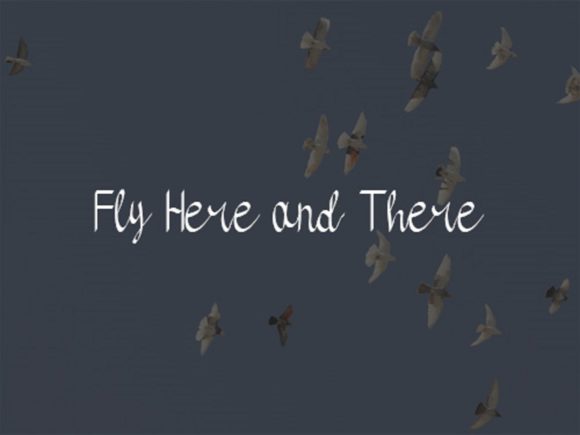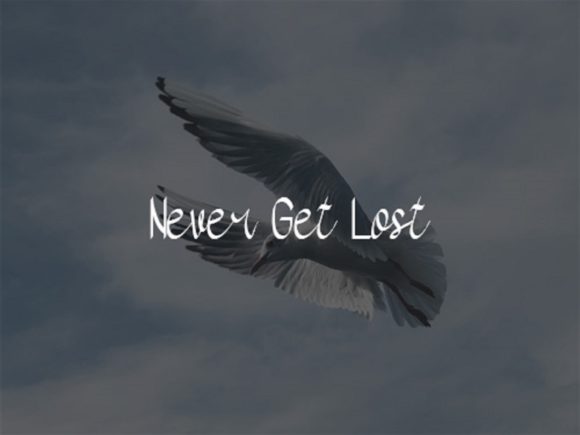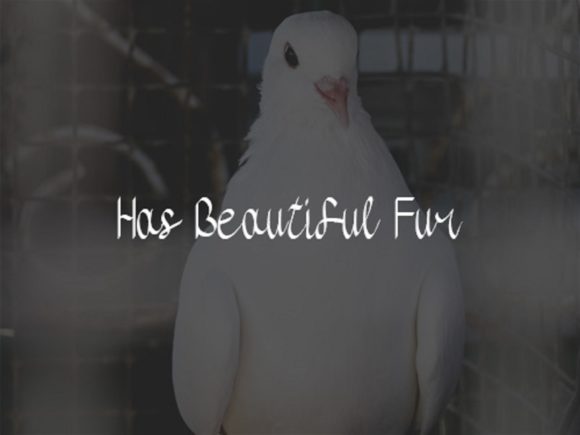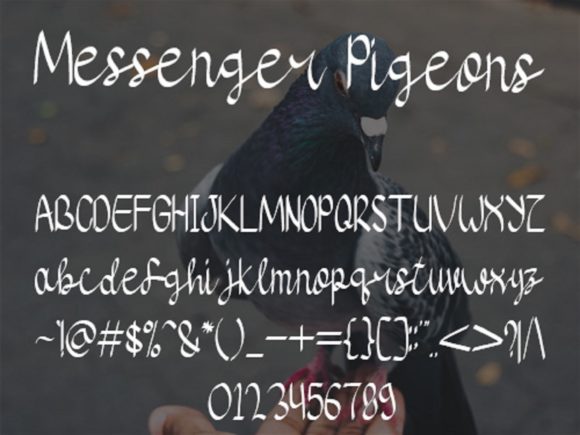
Introduction to Messenger Pigeons Font
Have you ever stumbled upon a beautiful design that made you stop scrolling and take notice? For designers, that ‘aha’ moment is what drives creativity and inspires new projects. It happened to me when I discovered the Messenger Pigeons Font – a magical script font that effortlessly elevates any design to a work of art. Whether you’re working on a DIY project or creating content for social media, this font is the perfect addition to your design resource.
What sets Messenger Pigeons Font apart is its unique blend of elegance and sophistication, making it a valuable asset for designers. With a high-quality design that can be easily downloaded, this font is perfect for those looking to add a touch of personality to their creative project. Plus, with a transparent background, you can easily integrate it into your design without any hassle.
Key Features of Messenger Pigeons Font
- Unique and playful design ideal for creative projects and design resources.
- High-quality font with transparent background, suitable for various design applications.
- Includes a range of characters and glyphs, making it suitable for various languages and scripts.
- Designed to be versatile and adaptable, suitable for use in various design contexts, from digital to print media.
Honest Review: Messenger Pigeons Font
I recently stumbled upon the Messenger Pigeons Font and I’m excited to share my thoughts on this design resource. As a designer, I’m always on the lookout for high-quality fonts that can elevate my creative projects.
One thing that works well with the Messenger Pigeons Font is its unique and quirky style, perfect for adding a touch of whimsy to any design. The font is highly customizable and comes in a range of weights, making it suitable for a variety of design applications. I also appreciate that it’s a free download, making it accessible to designers of all levels.
Some of the features that stood out to me include:
- High-quality design with a transparent background, making it easy to use in various design contexts.
- Multiple weights and styles to choose from, allowing for versatility in design projects.
⚠️ One limitation I noticed is that the font may not be suitable for body text, as it’s quite decorative and may be difficult to read at smaller sizes.
Overall, I’m impressed with the Messenger Pigeons Font and would definitely recommend it for designers looking for a unique and high-quality design resource for their creative projects.
Experiment with different font sizes, colors, and styles to create a unique and eye-catching design. Use the font with a transparent background to add a professional touch to your design.
The Messenger Pigeons Font is perfect for any creative project that requires a unique and eye-catching touch, such as:
- Party and event flyers